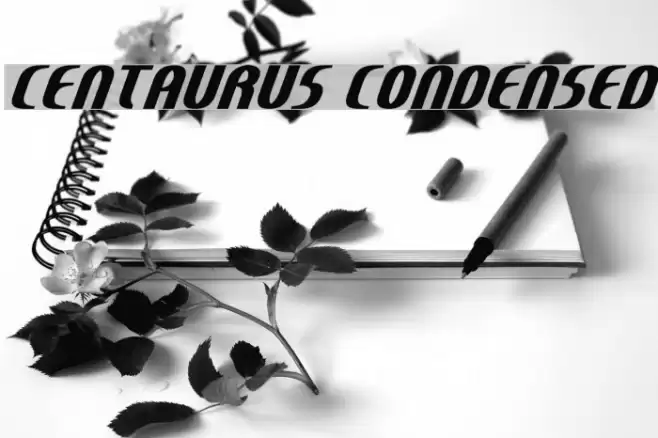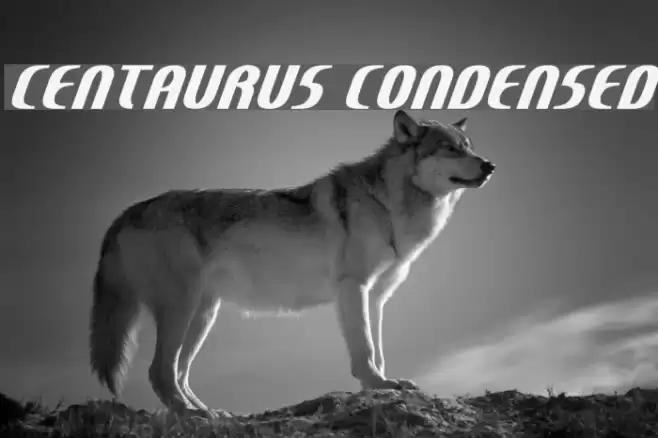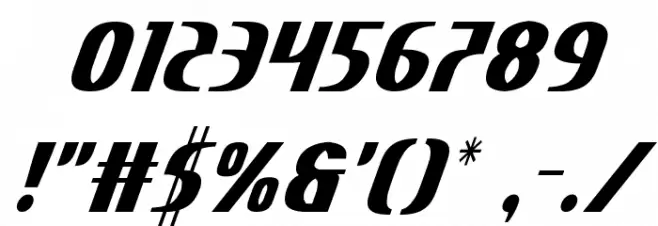
Centaurus Condensed Font
Centaurus Condensed Description
This font features a bold, condensed style with a distinct slant, giving it a dynamic and energetic appearance. The characters are tightly spaced, enhancing its compact look. The strokes are thick and consistent, providing a strong visual impact. The design is modern and sleek, with a slight italic influence that adds a sense of motion and fluidity. The uppercase and lowercase letters maintain a cohesive style, while the numerals and special characters are designed to match the overall aesthetic. This font is ideal for making a bold statement in any design project.
A bold, condensed, and slanted font with a dynamic and modern style from Uncategorized fonts.
- Proposed Projects: Ideal for branding, advertising, posters, and headlines where a strong visual impact is desired.
- Character Spacing: Tight